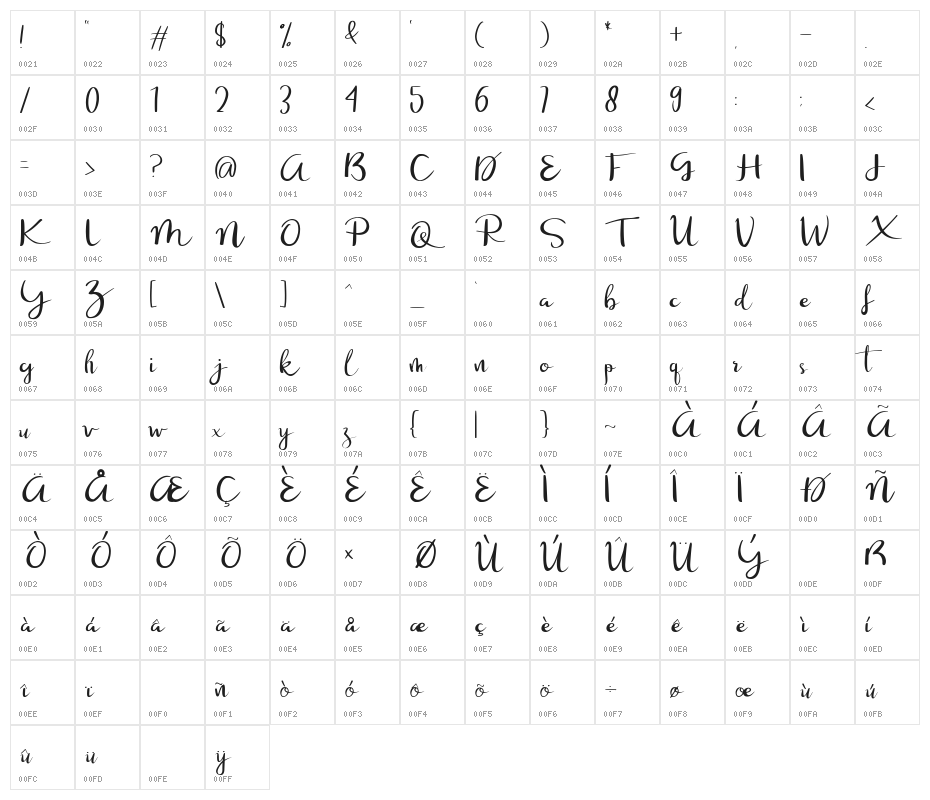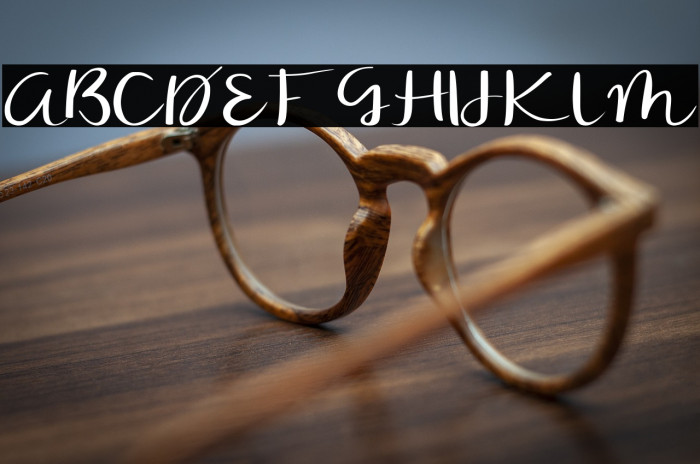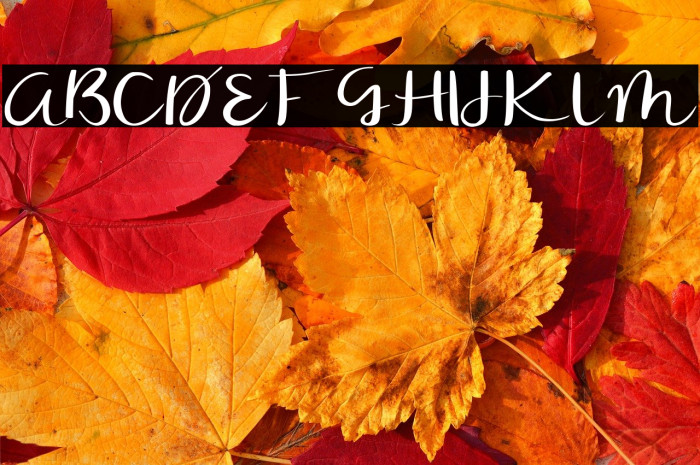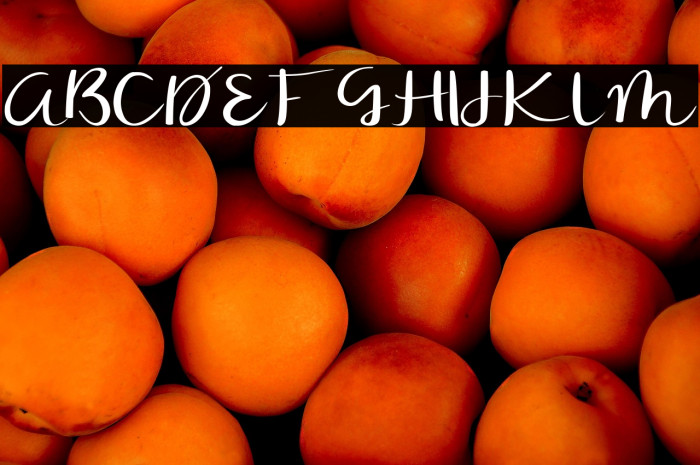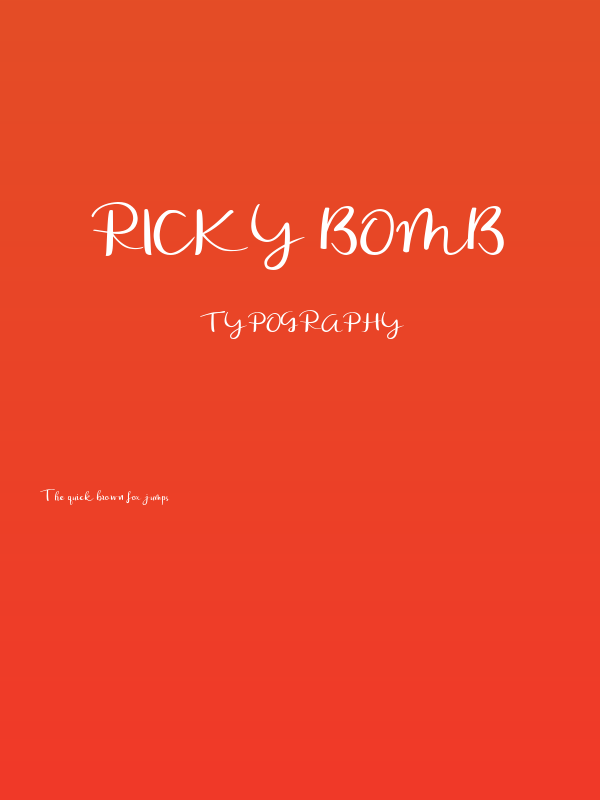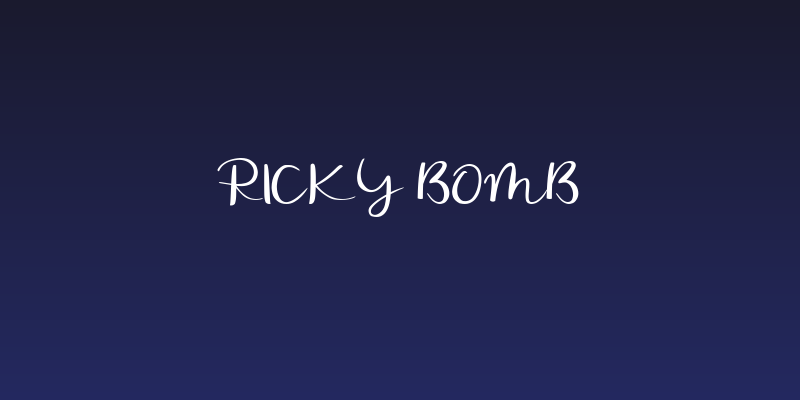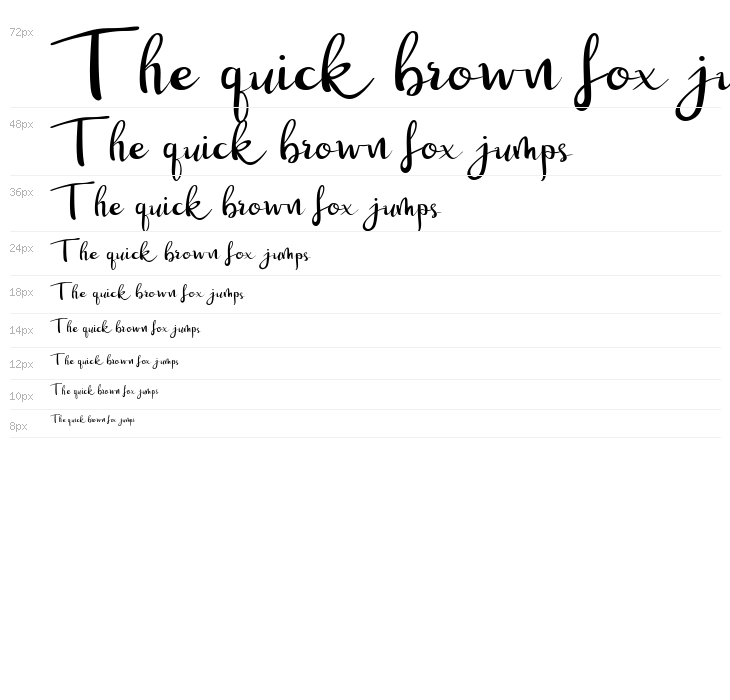
Ricky Bomb Font
Ricky Bomb Description
This font features a lively and dynamic script style with a handwritten feel. The uppercase letters are bold and expressive, with a slight slant that adds a sense of movement. The lowercase letters maintain a consistent flow, with some characters extending below the baseline, enhancing the font's playful nature. The numerals are well-balanced, matching the overall aesthetic. Special characters are creatively integrated, maintaining the font's cohesive look. This font is ideal for projects that require a personal touch, such as invitations, greeting cards, or branding materials.